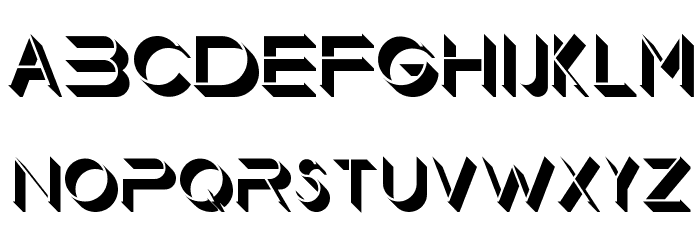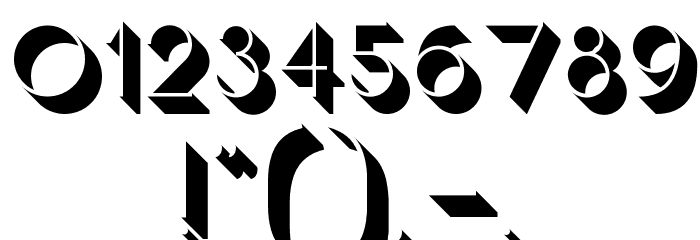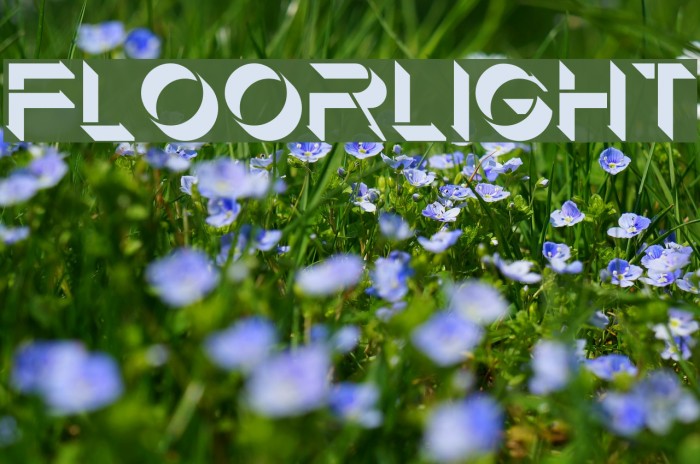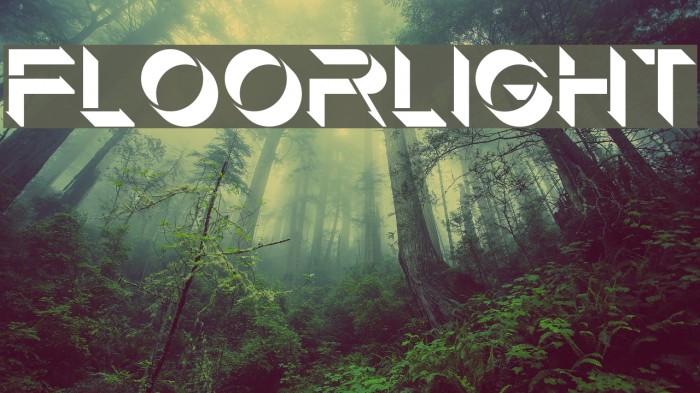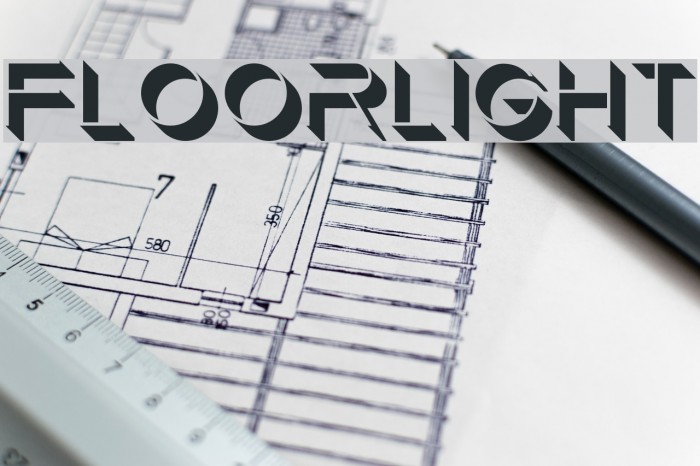
Floorlight Font
This font features a bold and striking design with a modern, geometric aesthetic. Each character is crafted with sharp angles and a unique cut-out effect that creates a sense of movement and depth. The uppercase letters are particularly dynamic, with diagonal lines slicing through the forms, adding a futuristic touch. The numerals and special characters maintain this theme, ensuring a cohesive look across all glyphs. The overall style is highly decorative, making it ideal for attention-grabbing headlines or branding that requires a contemporary and edgy feel.
A bold, geometric font with sharp angles and a modern cut-out effect.
- Proposed Projects: Ideal for modern branding, futuristic posters, and eye-catching headlines.